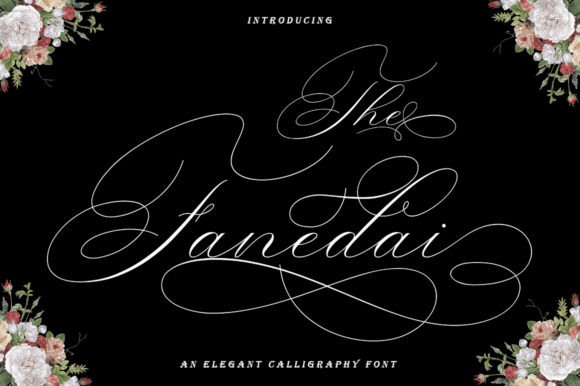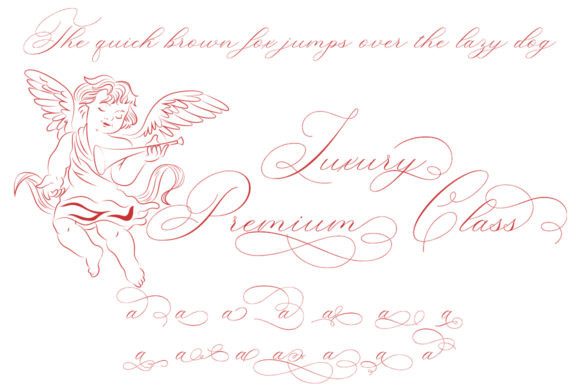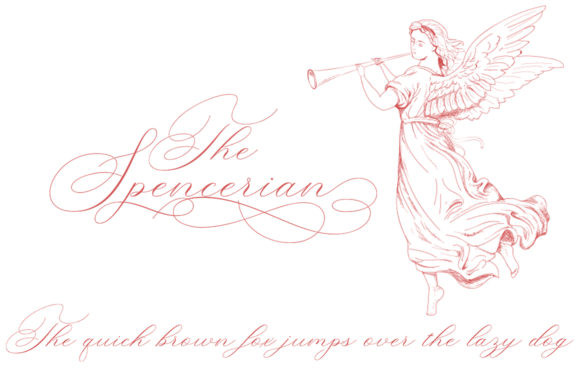
The Fanedai Font
The Fanedai is a modern handwritten font with a special heart character. Fall in love with an authentic feel and use it to create beautiful wedding invitations, beautiful artwork, and funny greeting cards.